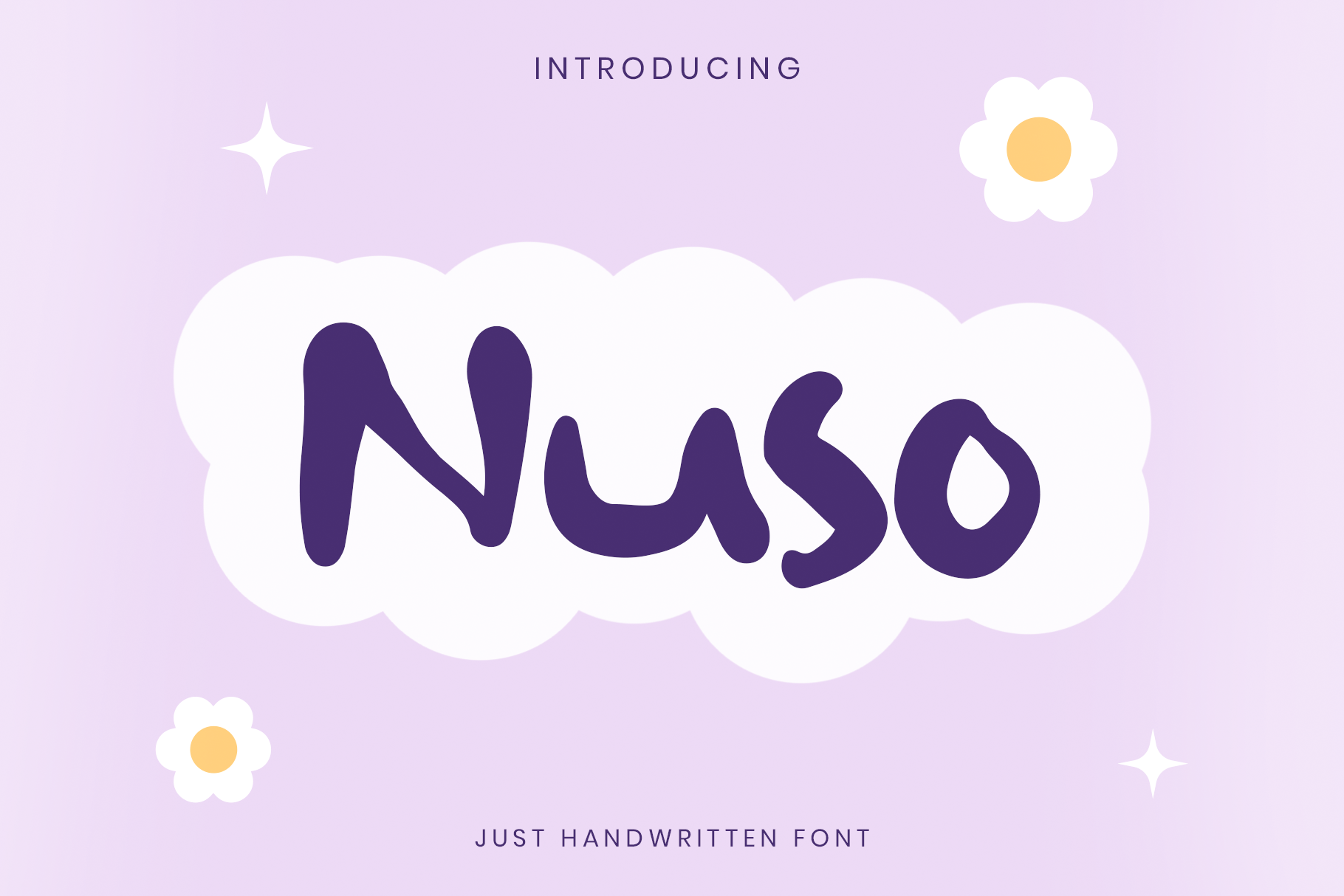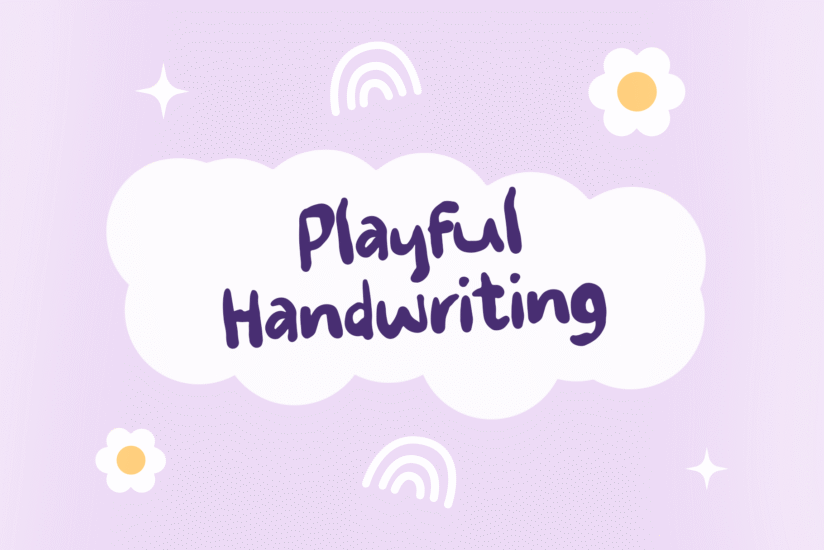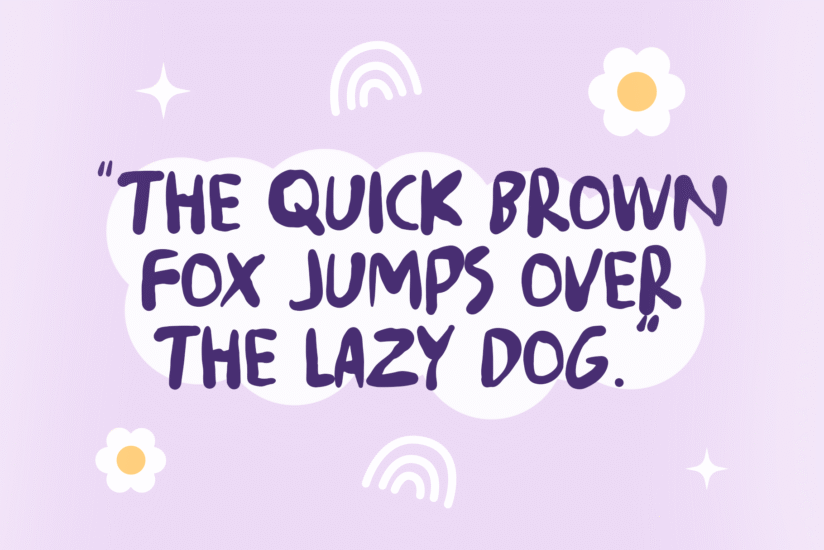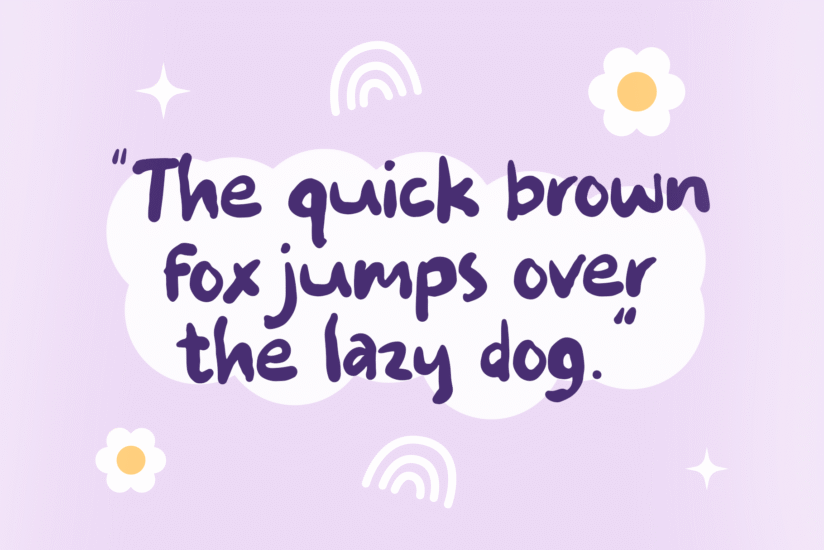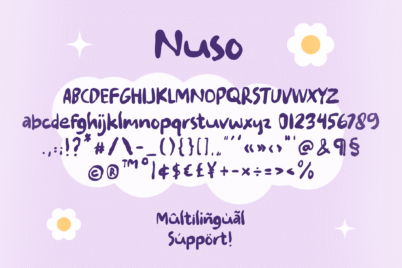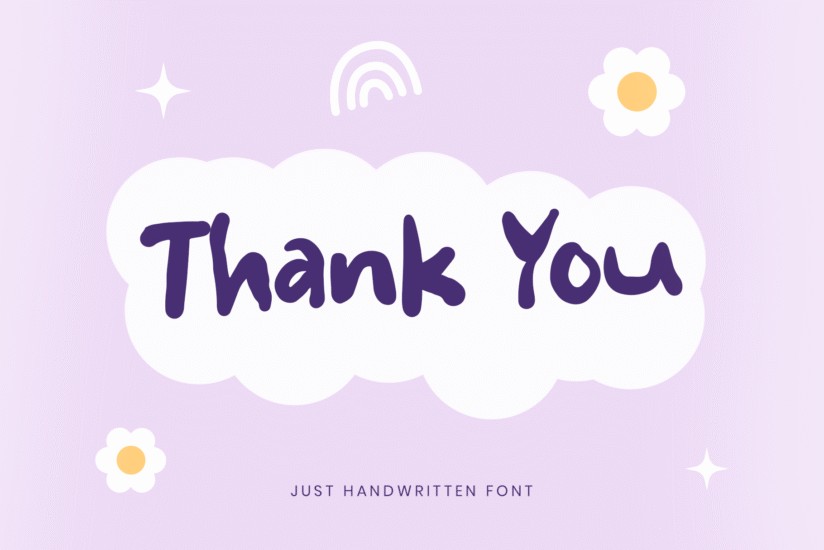
Nuso HF
Unleash the power of expression with Nuso Handwritten Font, a Handwriting Font Bold that redefines boldness in typography. The striking strokes and captivating details of this font make it an ideal choice for those seeking a handwriting font with a bold personality. Elevate your designs with Nuso and let your words make a bold statement.
Perfect for headline text, posters, and impactful branding, Nuso Handwritten Font combines elegance with a strong presence. Each letter is crafted with precision, ensuring clarity and legibility in every application. Infuse your creative projects with the undeniable charm of bold handwriting.
Make a lasting impression with Nuso Handwritten Font – where bold meets beautiful in the art of typography.